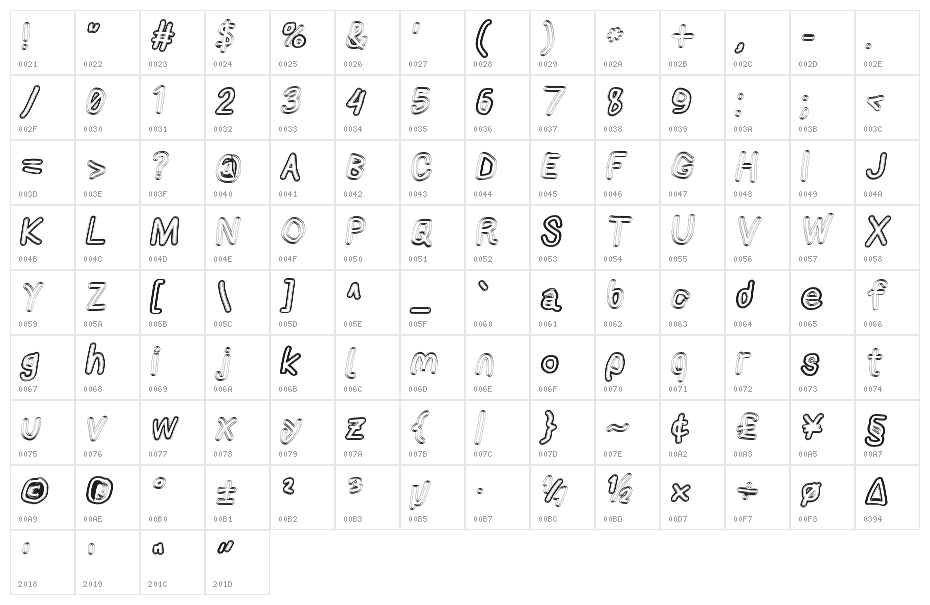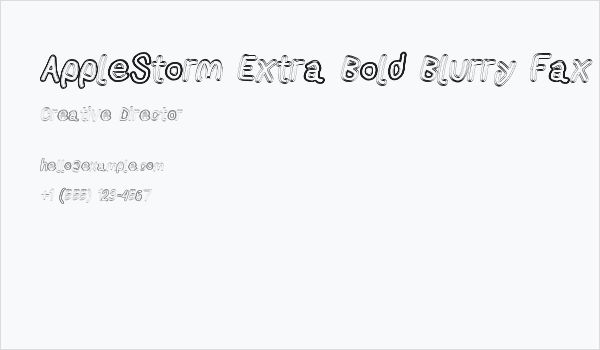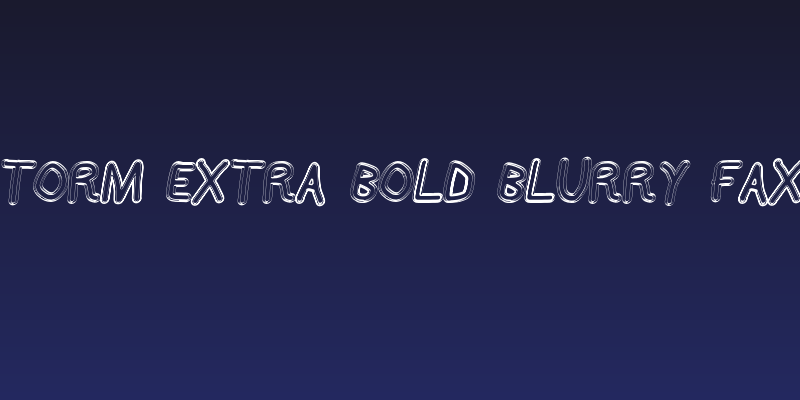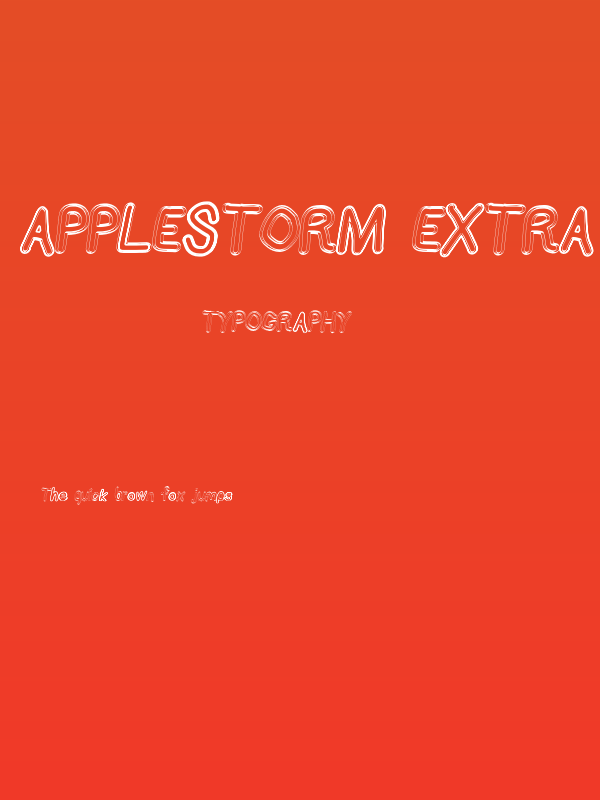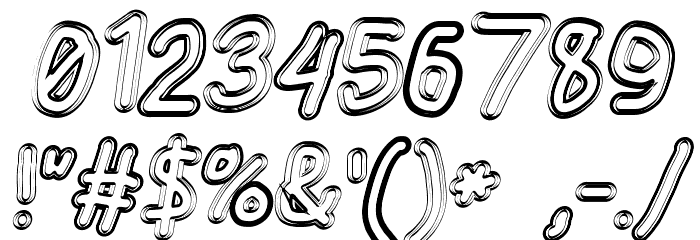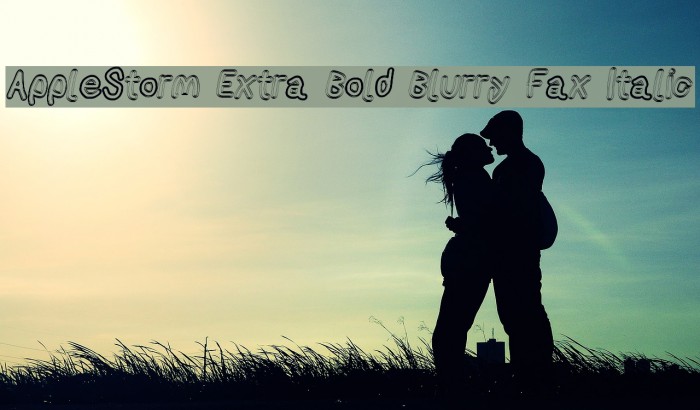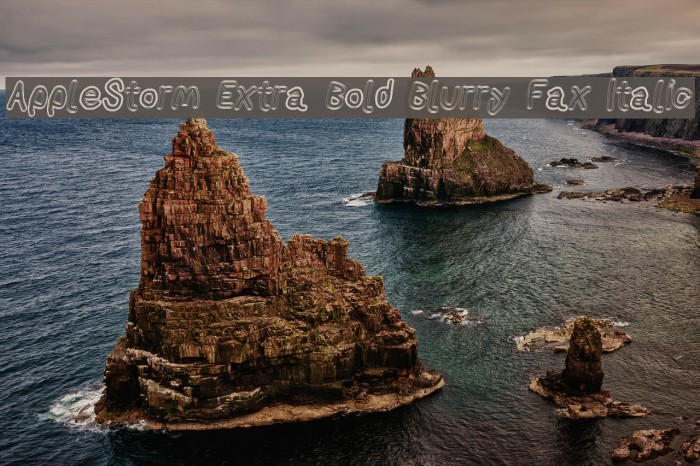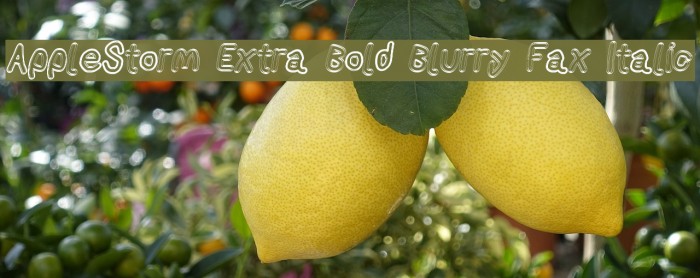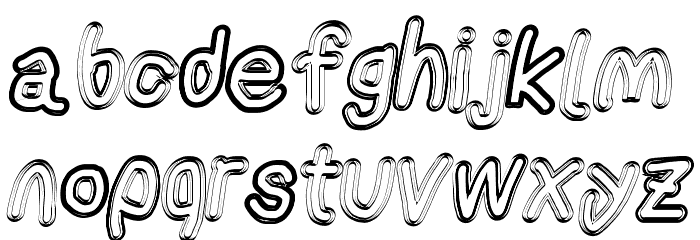
AppleStorm Extra Bold Blurry Fax Italic Font
AppleStorm Extra Bold Blurry Fax Italic Description
This font features a bold and playful design with a unique blurry effect that gives it a dynamic and energetic appearance. The characters are outlined with a thick stroke, creating a sense of depth and movement. The letters are slightly italicized, adding a touch of elegance to the overall style. The font maintains a consistent weight throughout, ensuring readability while still offering a distinctive look. Its rounded edges and smooth curves contribute to a friendly and approachable feel, making it suitable for a variety of creative projects.
| Proposed Projects | Ideal for creative projects such as posters, logos, and headlines where a bold and dynamic appearance is desired. |